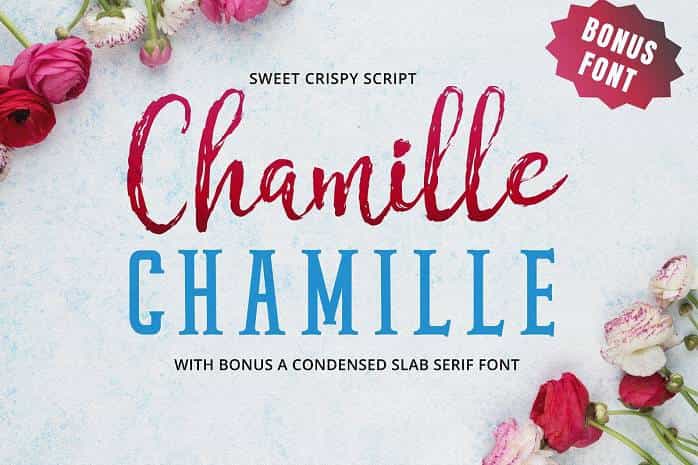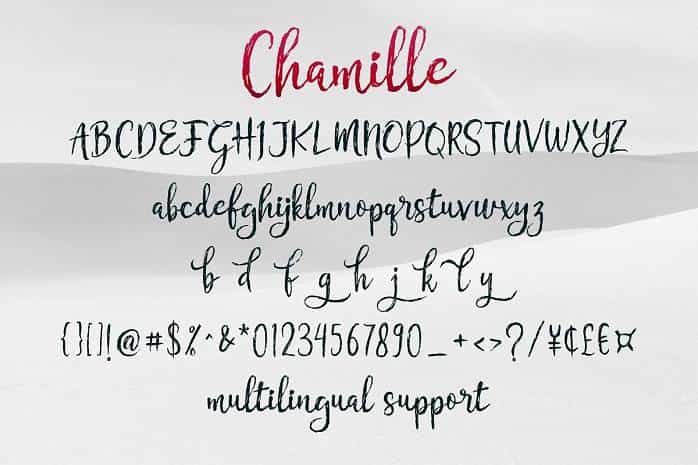
Discover Chamille Font Duo, part of the Brush Serif collection—a versatile and unique font perfect for adding a personal touch to your projects. Download it for free and enjoy crafting designs with style, from invitations to social media posts. This font is available exclusively for personal use, giving you the freedom to create without limits. Unlock your creativity with Chamille Font Duo today!
Say Hi to Chamille! It’s a stretchable typeface with smooth curves and one that you will use over and over again. Chamille created and disseminated by great19. Chamille – hand-lettering font with semi dry brush pen effect signature is a casual in feel and organic. Together with a bonus, a condensed slab serif font – it imparts a unique and high-quality impression. The combination will work nicely in tittle display, headline, poster and others.